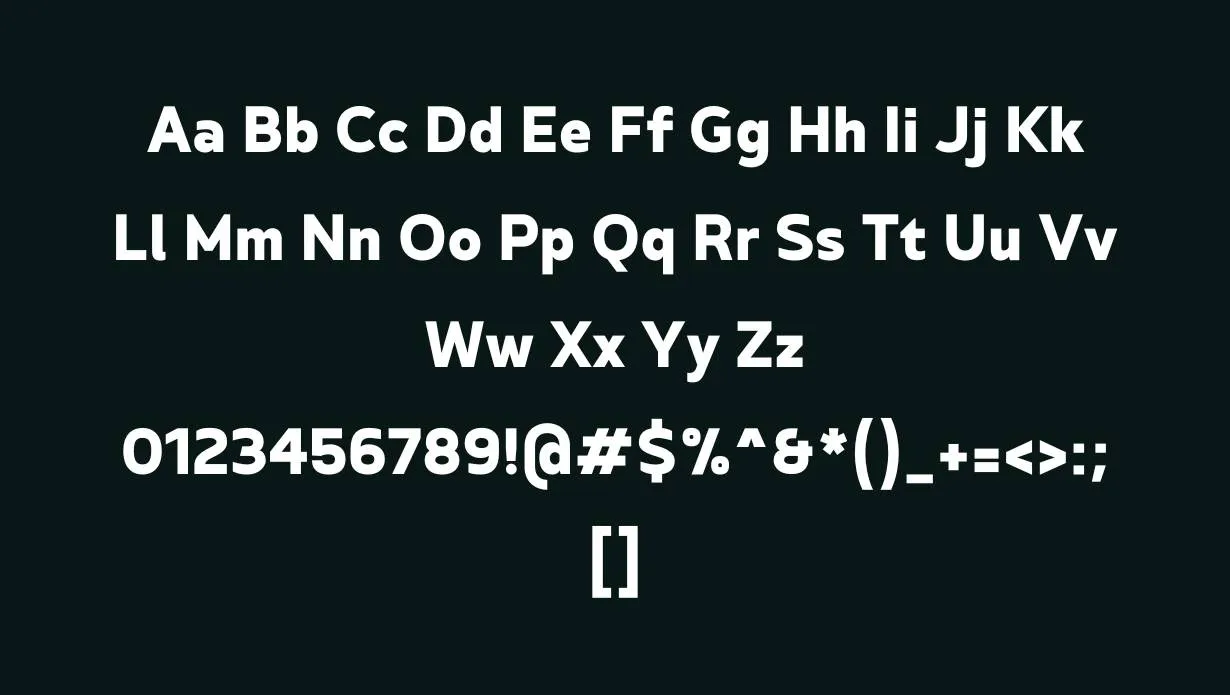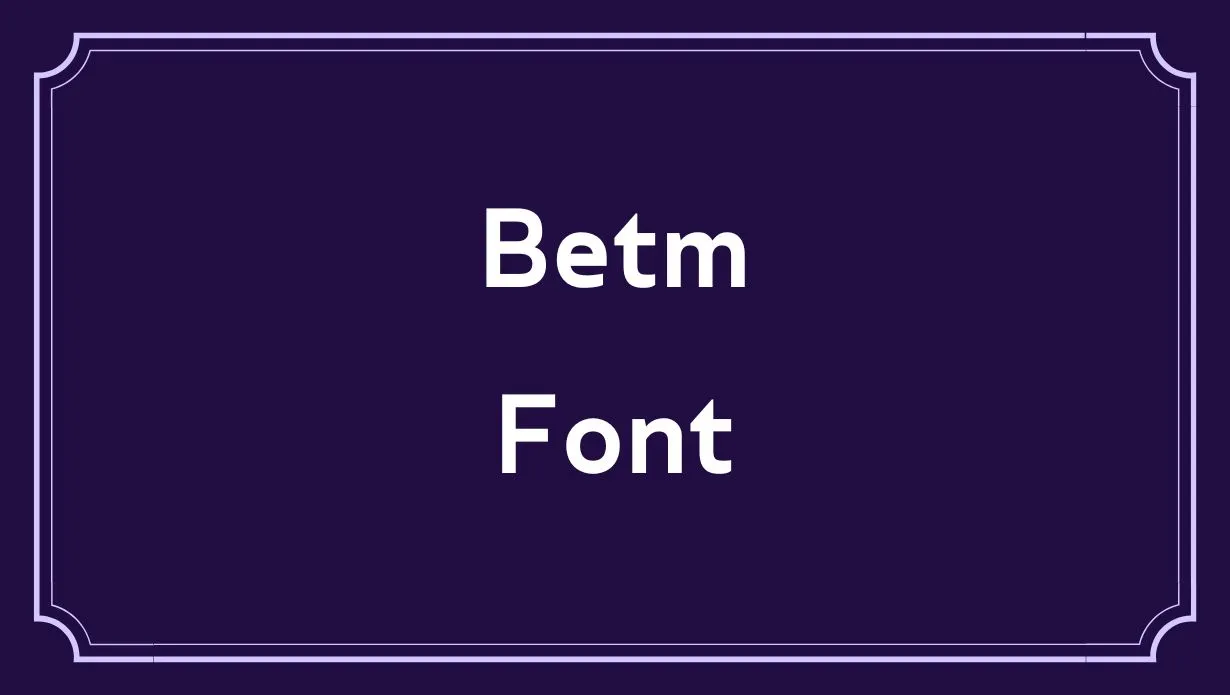
About Betm Font
Betm is a modern geometric sans‑serif typeface with clean, balanced letterforms that deliver a contemporary and professional aesthetic. Designed with a focus on simplicity and legibility, it performs well in a wide range of design contexts, from headlines and branding to editorial layouts and user interfaces. The family includes multiple weights and corresponding italics, offering flexibility for expressive typographic hierarchies. Betm’s neutral yet refined style makes it suitable for both print and digital use. Its versatile structure supports branding, corporate design, and creative projects that require a clear, modern sans‑serif solution.